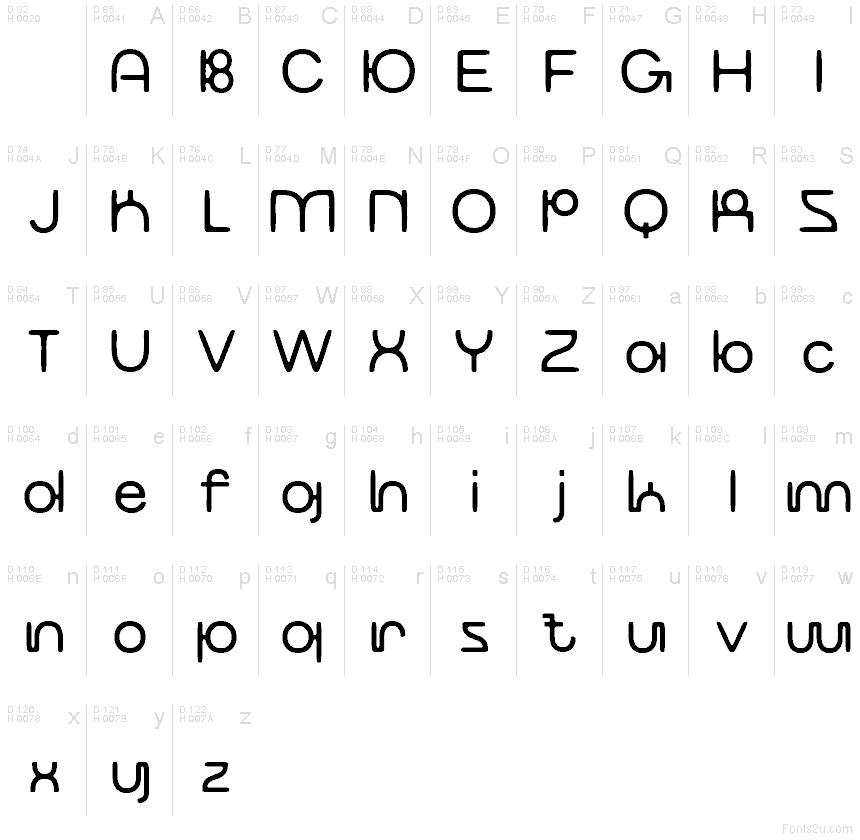
CSDeimosDrawn-Regular Demo
CS Deimos Drawn font is a sleek modern font family designed by Craft Supply Co. Navigating toward a minimalist approach, it features subtle geometric influences which are apparent not only within round letters but also inside more traditional shapes like those of rectangular and triangular natures. Thus, CS Deimos Drawn achieves an approachable atmosphere that is slightly futuristic.
A display free font with an unusual style that is perfect for logos, movie and video game posters, magnificent book covers, as well as the design of every other commercial project (packaging included). Website interfaces will look exciting in this classy typeface just as much as invitation covers. Users will love consuming all sorts of typographical regulated content such as big catalogs or magazines. Complete mobile layouts with custom typography alongside something special printed on corporate giveaways such as pens or keychains to achieve maximum impact!